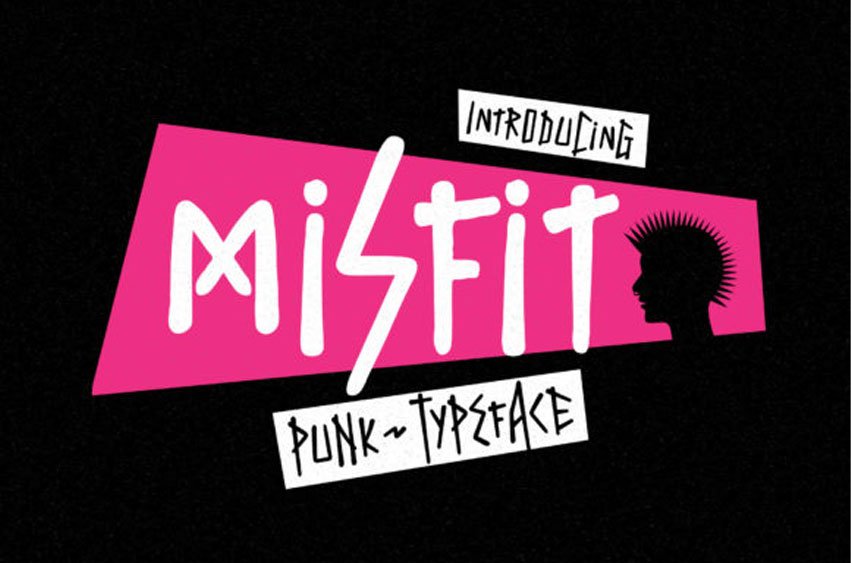
Misfit Font is a quirky and scary styled display font.
This font is suitable for designs such as t-shirts, sportswear, logos, advertisements, clothing, and more.